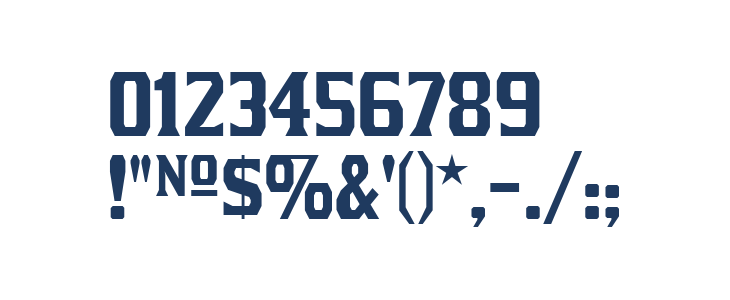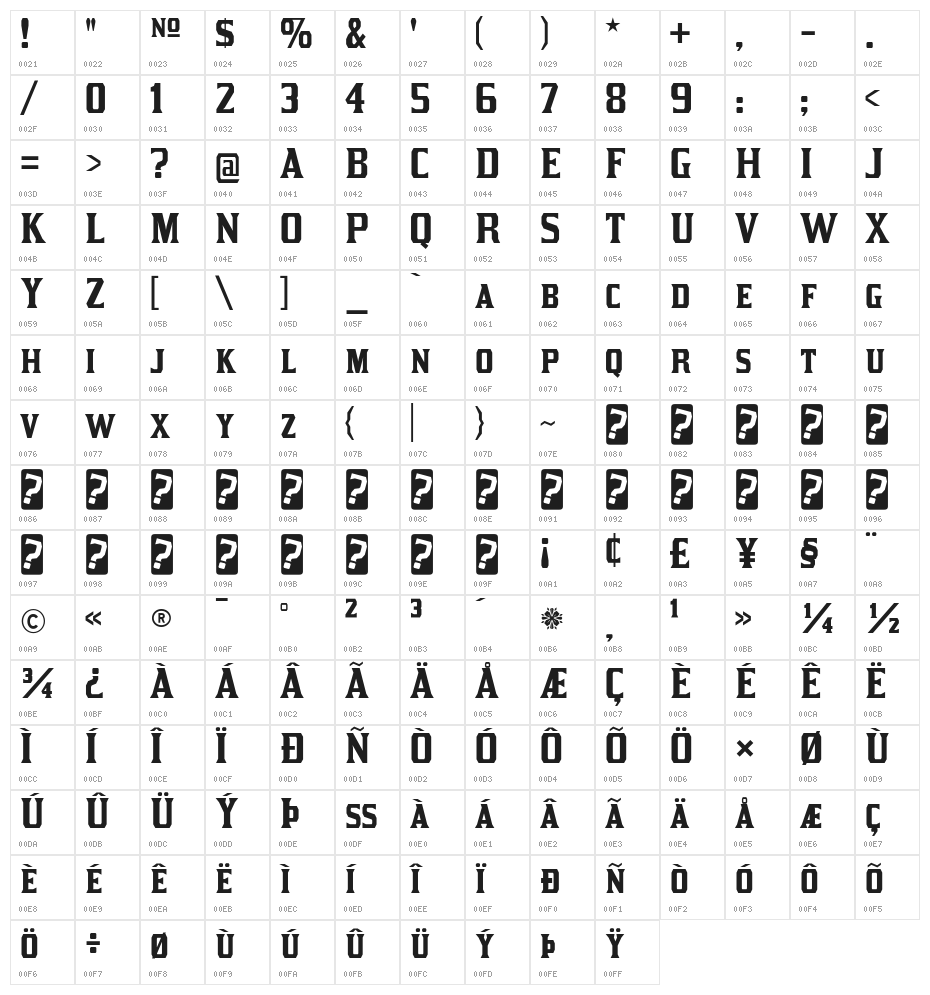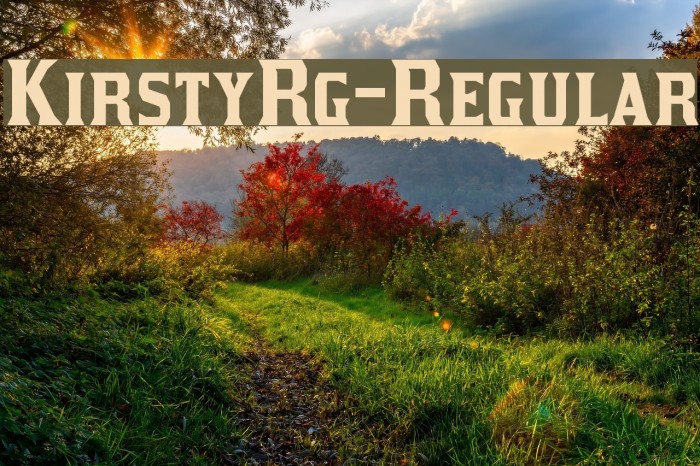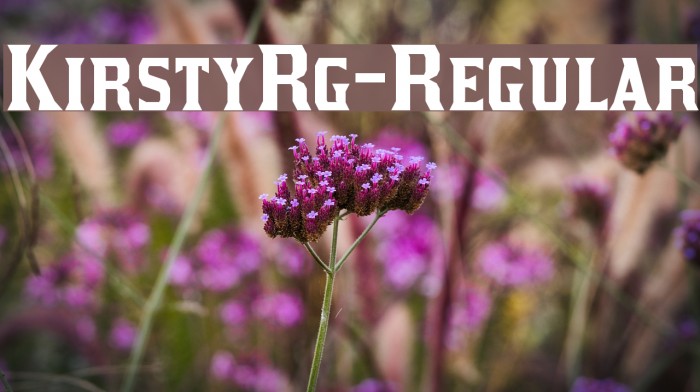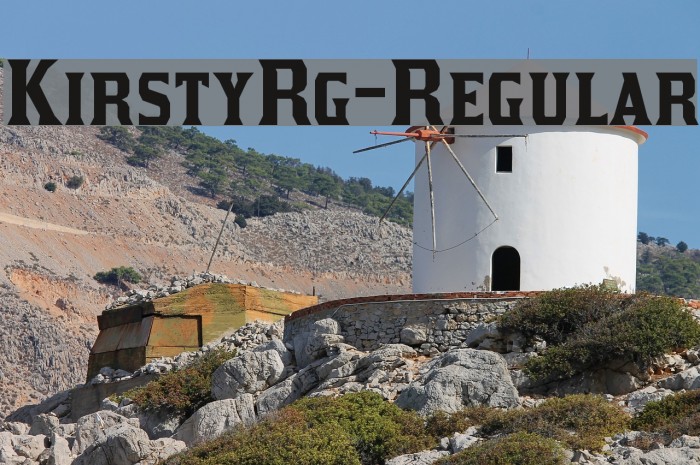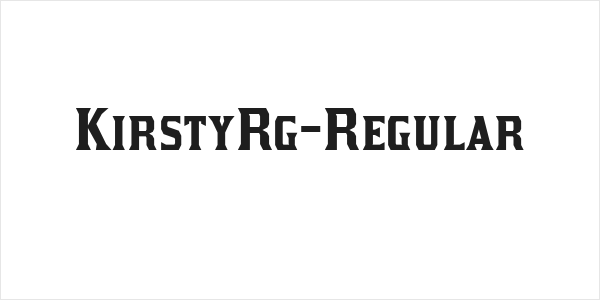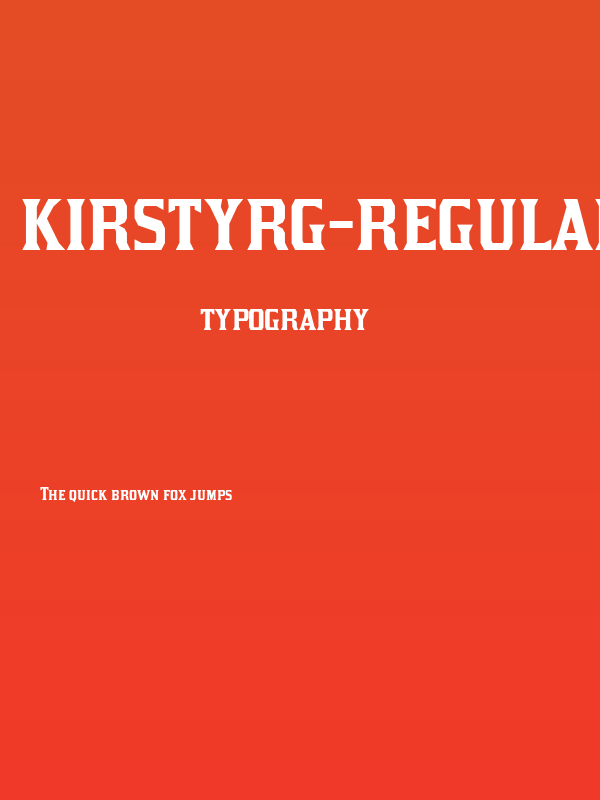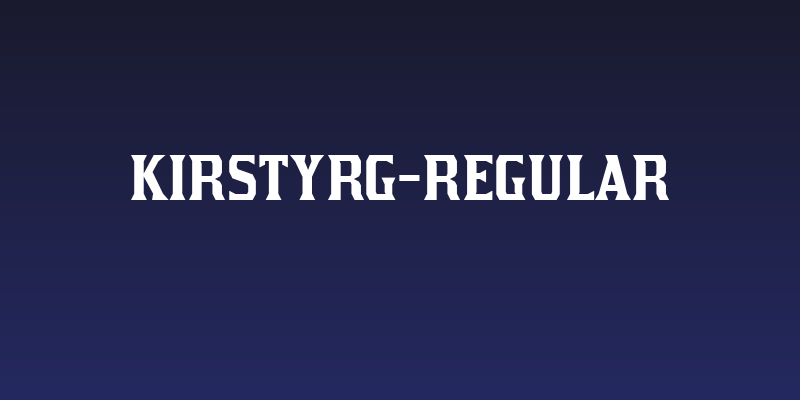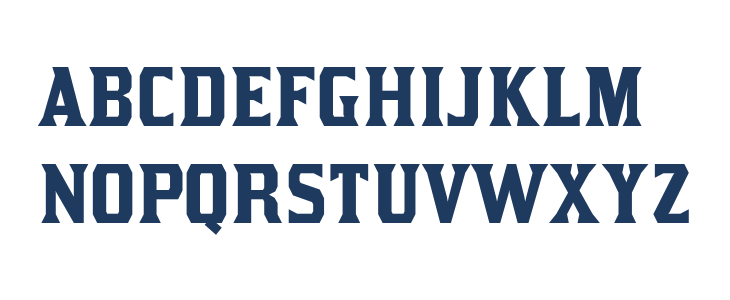
KirstyRg-Regular Font
KirstyRg-Regular Description
This font exhibits a bold and striking appearance with a strong geometric structure. The characters are designed with sharp, angular edges and a consistent stroke width, giving it a robust and impactful look. The uppercase and lowercase letters maintain a uniform style, while the numerals and special characters complement the overall design. The font's boldness and distinct style make it suitable for attention-grabbing headlines and titles. Its unique character shapes add a modern and edgy feel, making it ideal for projects that require a strong visual presence.
| Proposed Projects | Ideal for branding, posters, headlines, and any design requiring a strong visual impact. |